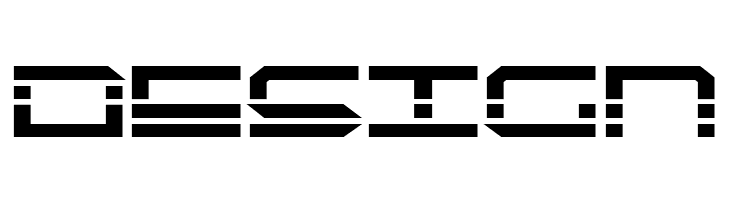
Crayonara Regular Font
- Font: Crayonara Regular
A futuristic, segmented font with a bold, digital aesthetic.
A futuristic, segmented font with geometric, angular letterforms.